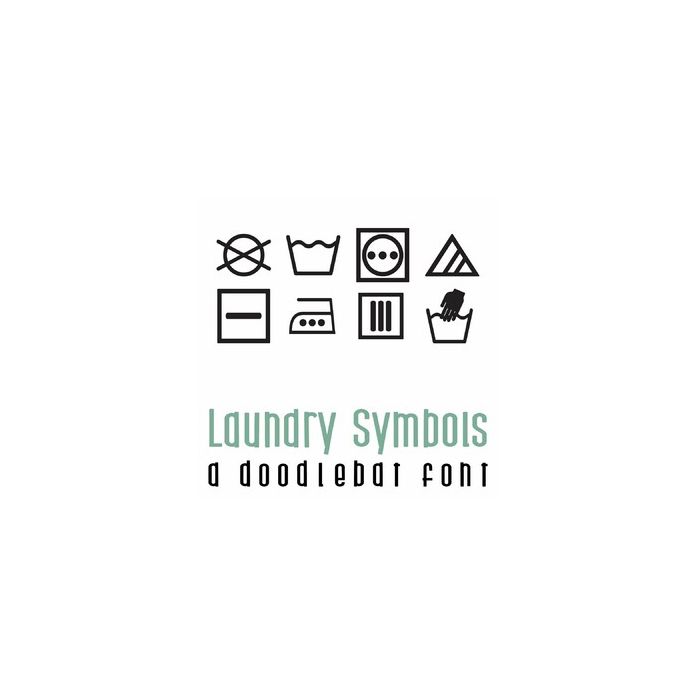
Laundry Symbols Doodlebat Font
This fun doodlebat font features 36 laundry symbols. Perfect for cards, gifts, decor, crafts, scrap book pages, planner stickers and more!